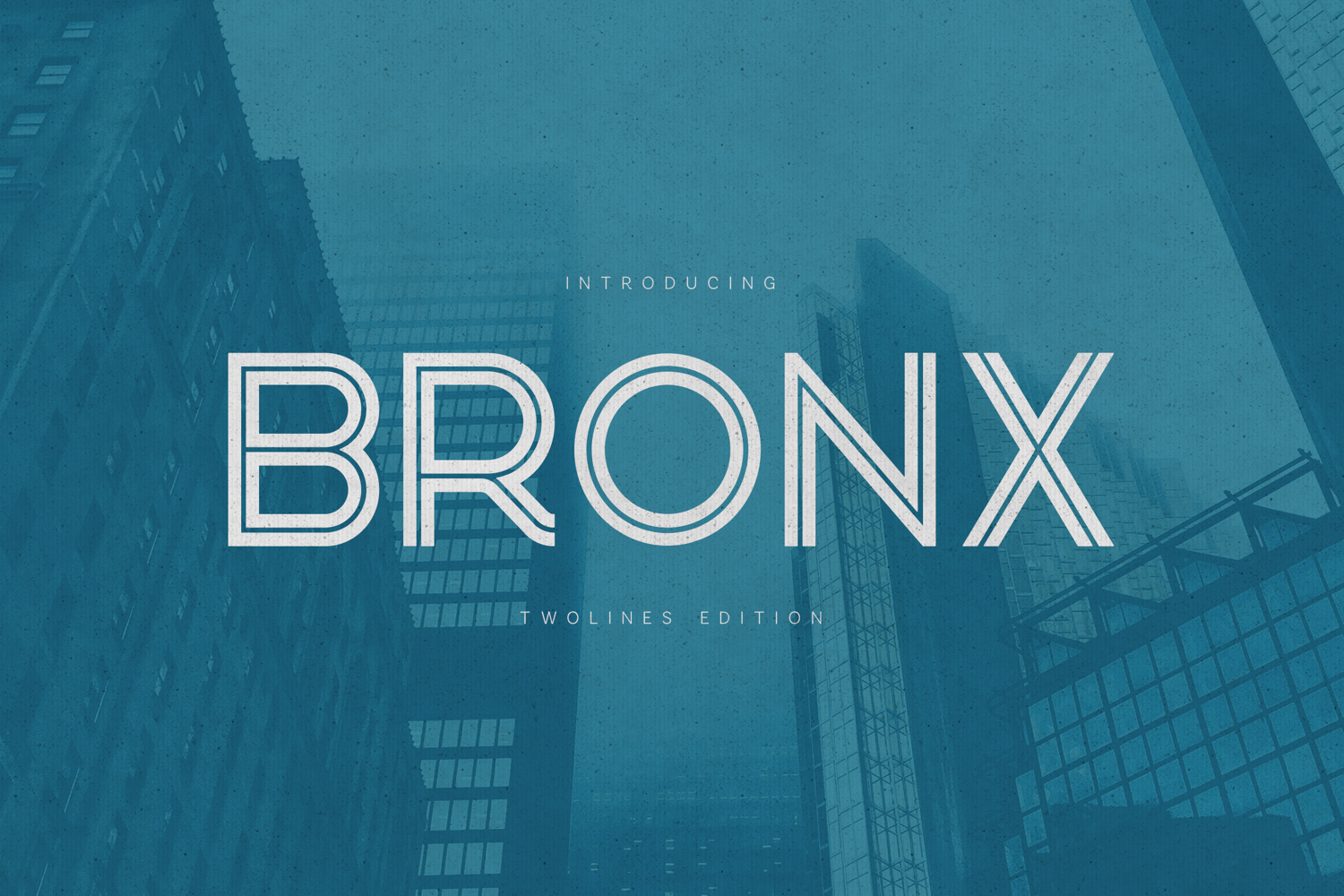
Bronx Two Lines Outline Display Font
Bronx Two Lines Edition is a modern outline display font featuring a distinctive double-line construction and clean geometric forms. Inspired by urban architecture and contemporary typography, it delivers a bold yet refined look that stands out in headlines, posters, branding, editorial layouts, and modern visual identities.
The dual-line design adds depth and structure while maintaining excellent readability. Bronx Two Lines Edition includes uppercase and lowercase letters, numerals, punctuation, and extensive multilingual support, making it suitable for both print and digital projects. Delivered in OTF format, ready for professional use.